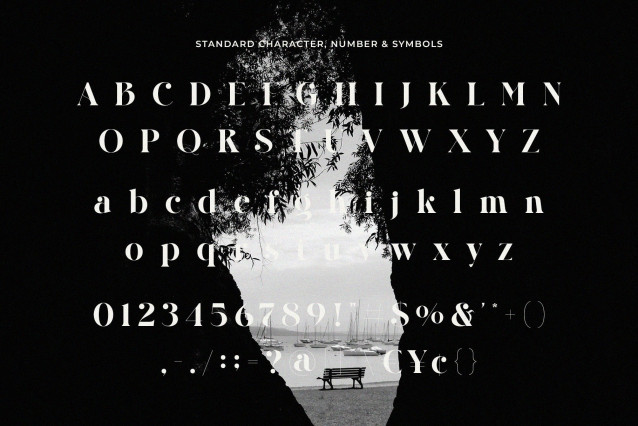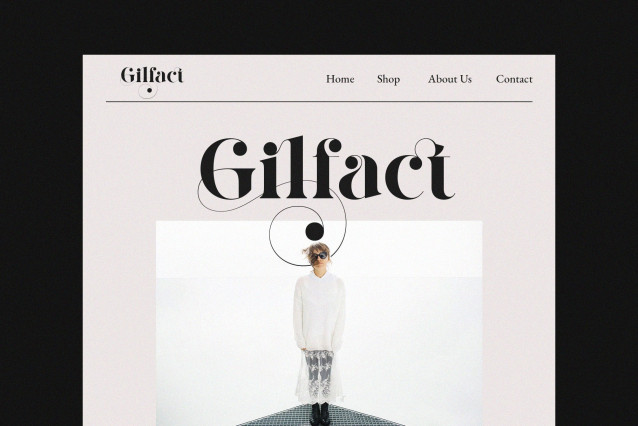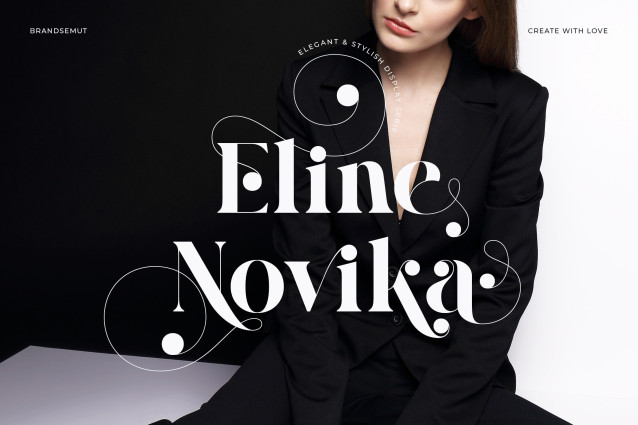
Eline Novika Font
Eline Novika Font is a modern, elegant and classy display serif, best used as a display for headings, logos, branding, magazines, product packaging and invitations. Eline Novika equipped with Ligature and many Alternates and come with clean lines and smooth curves give any project an extra touch of class.